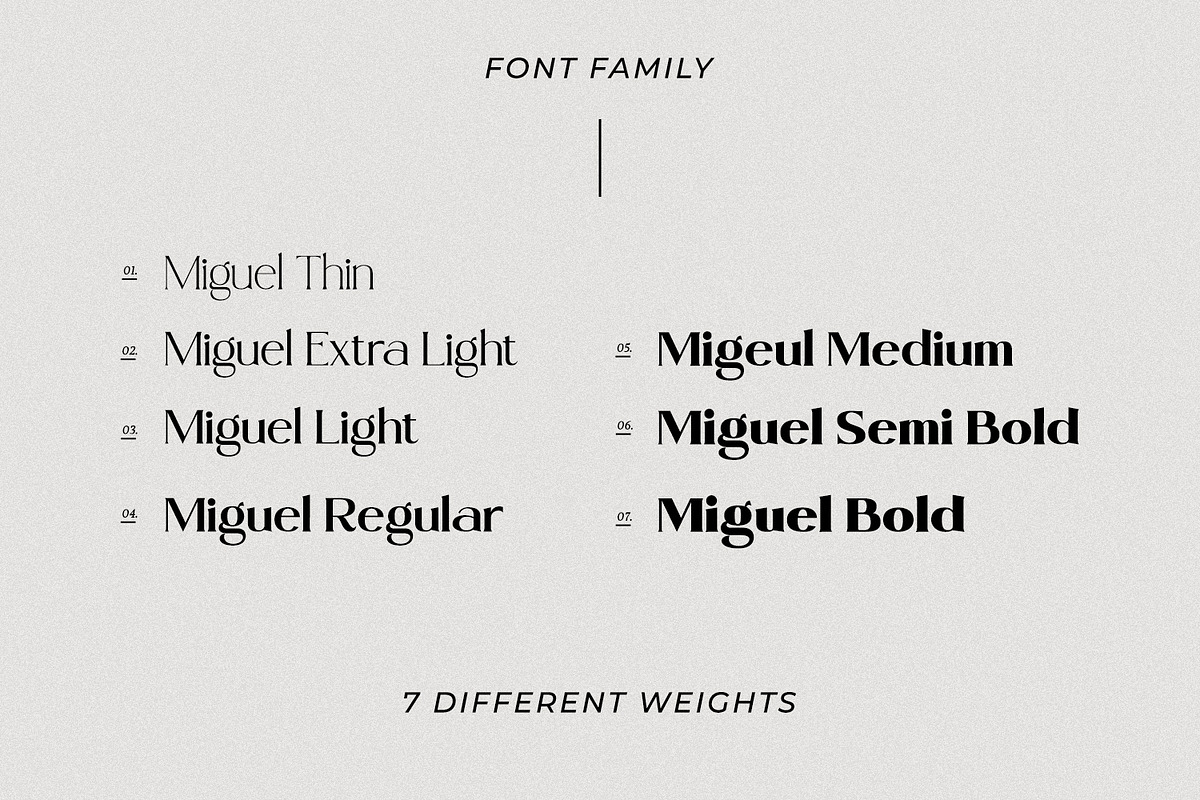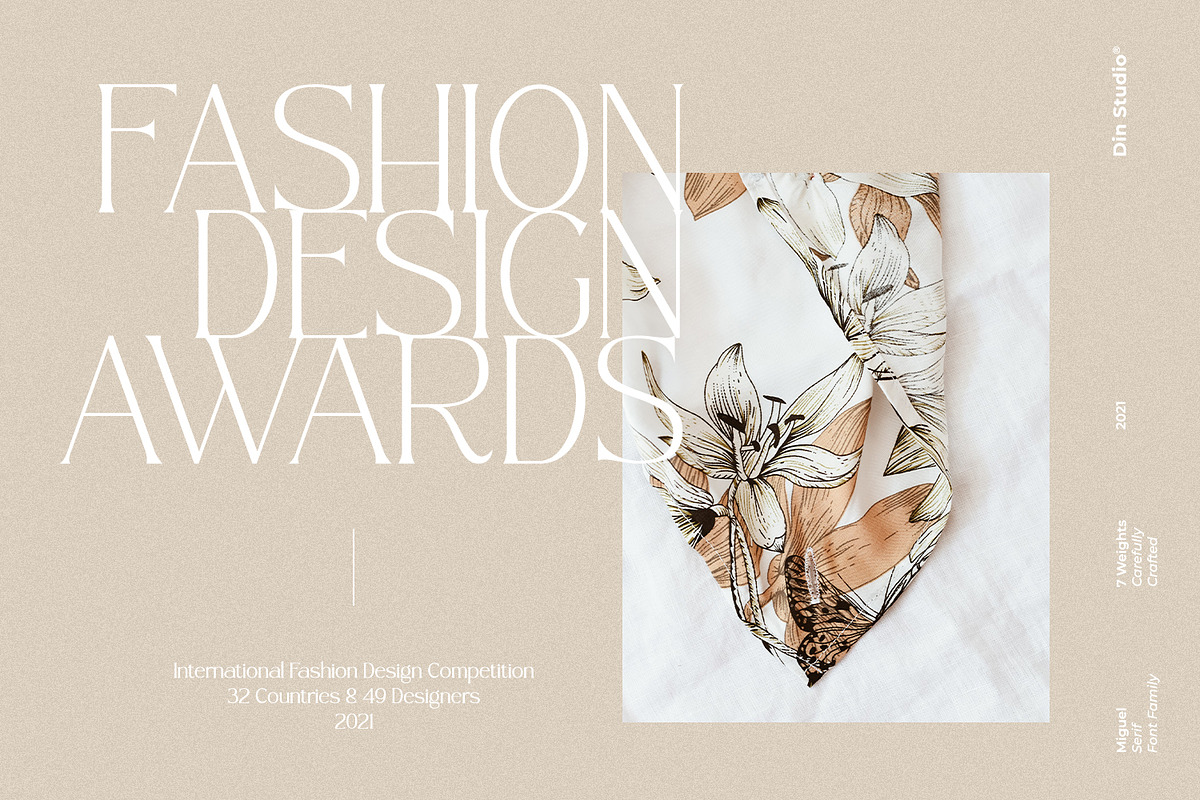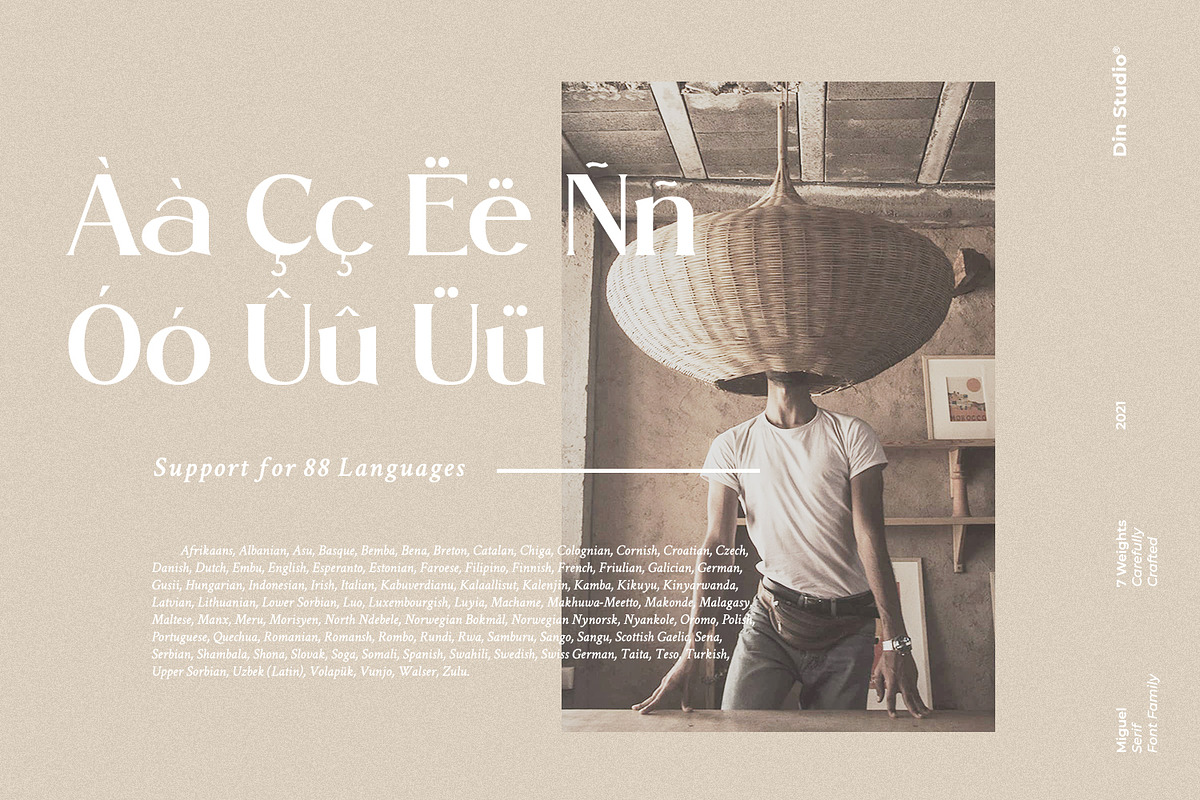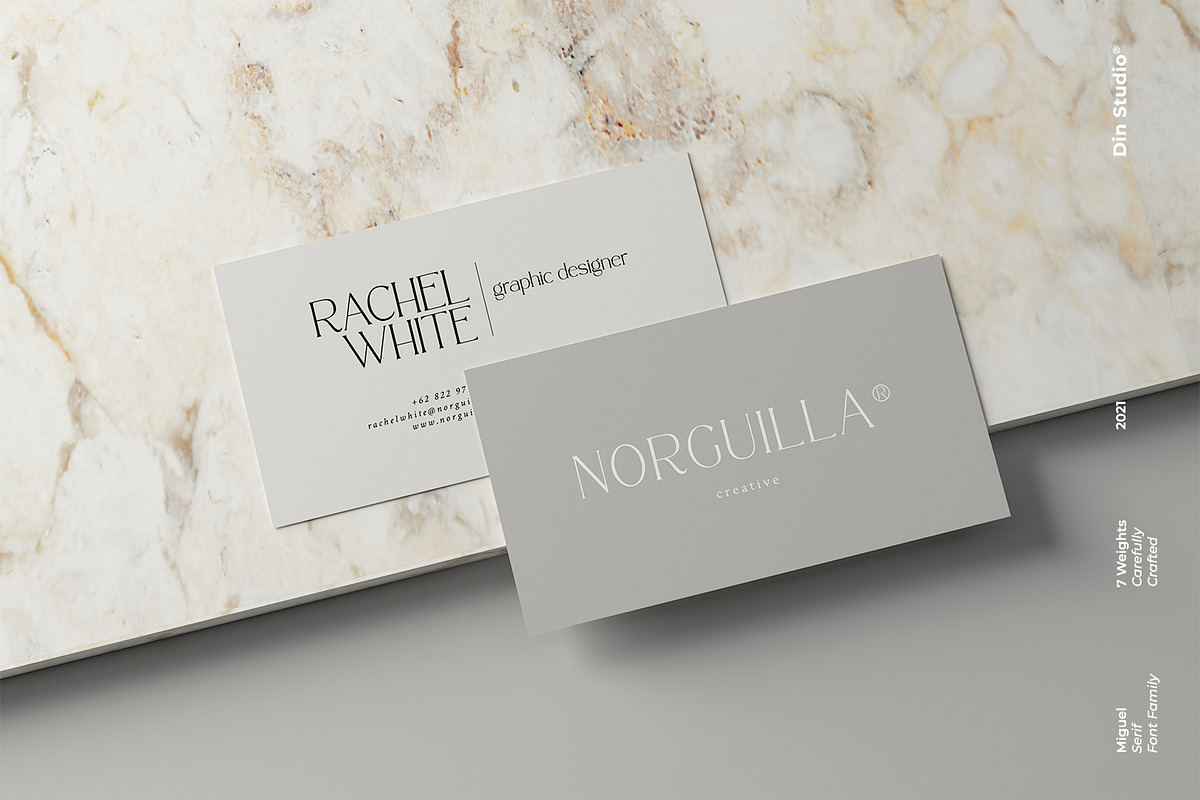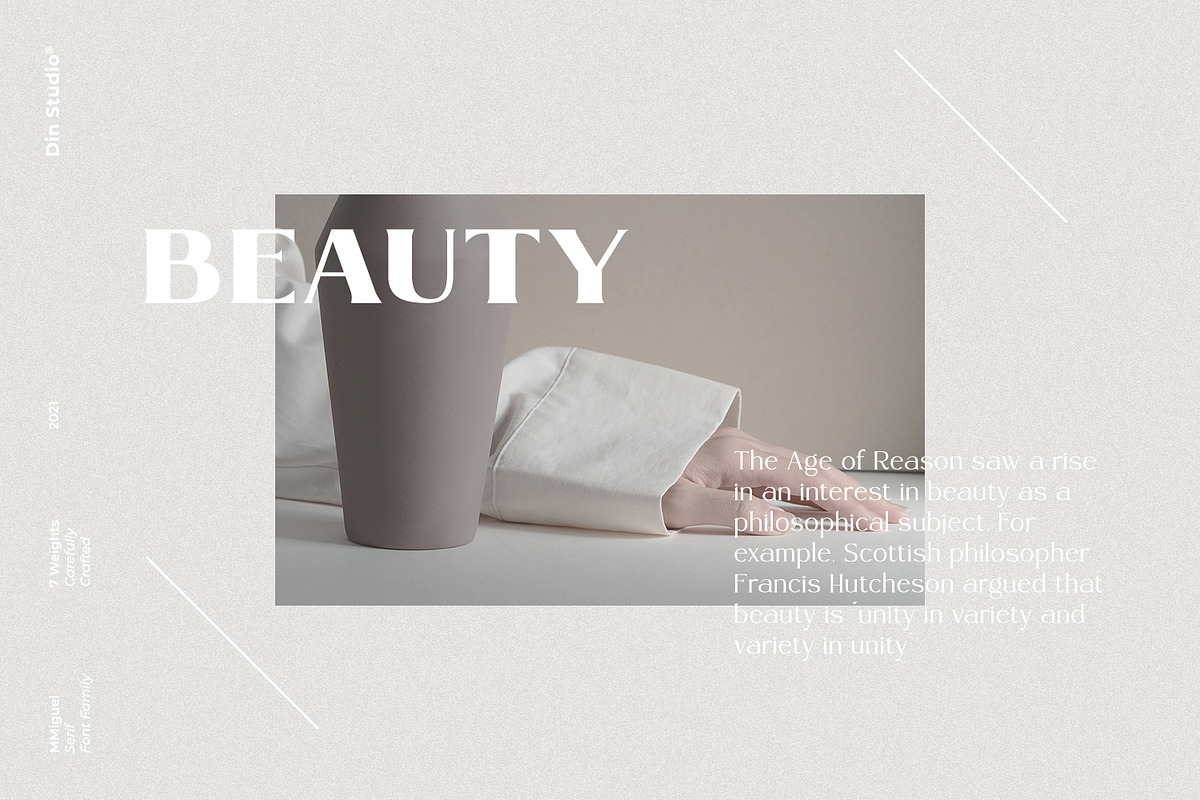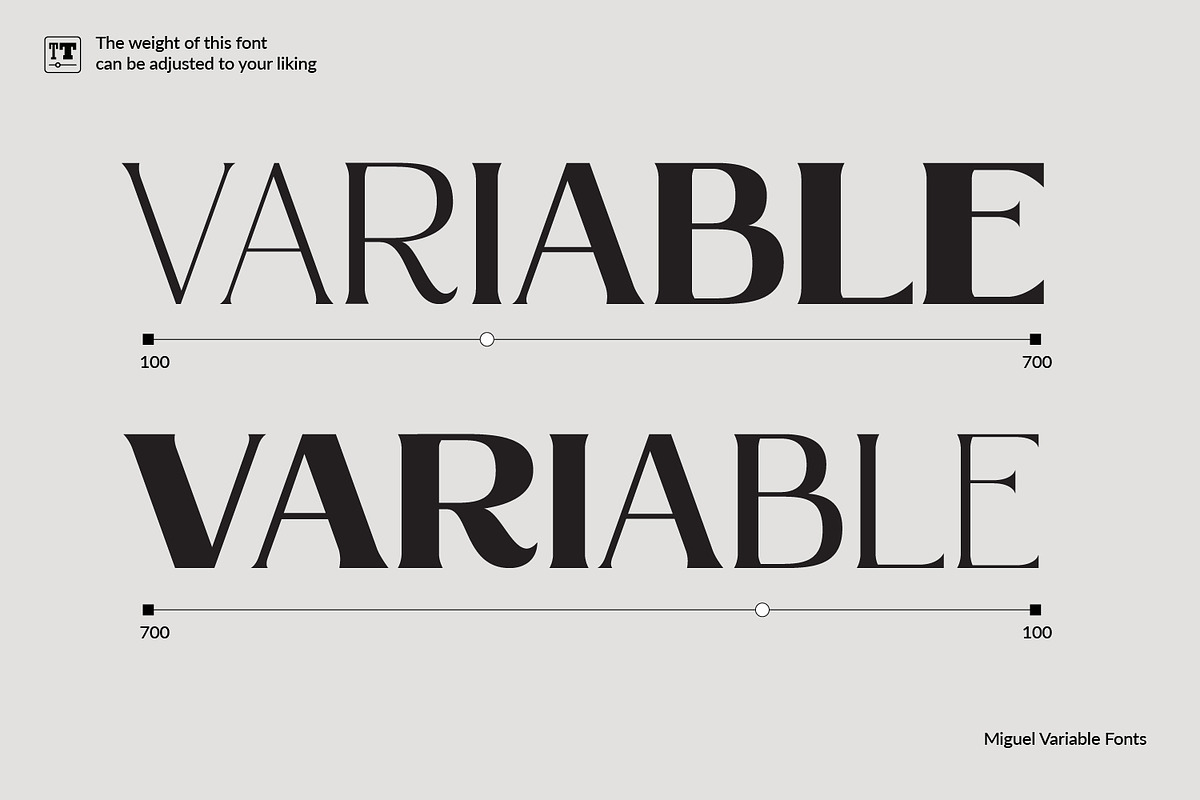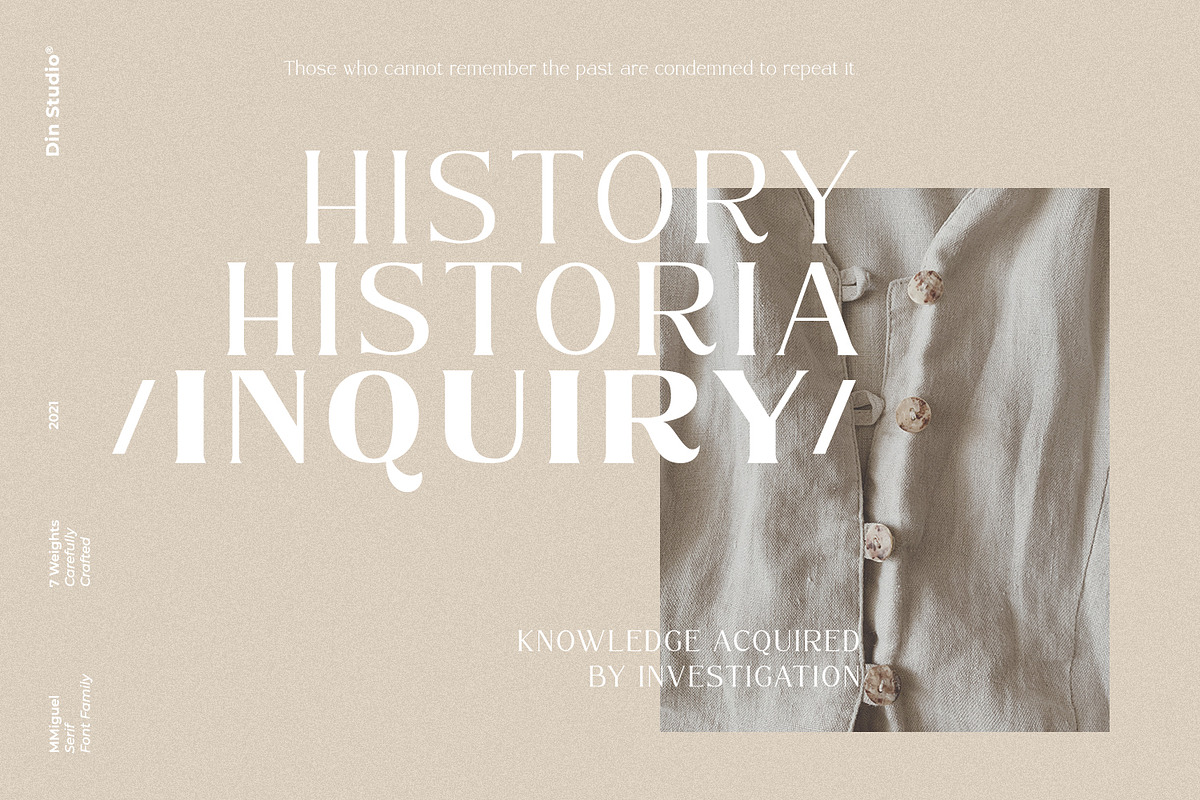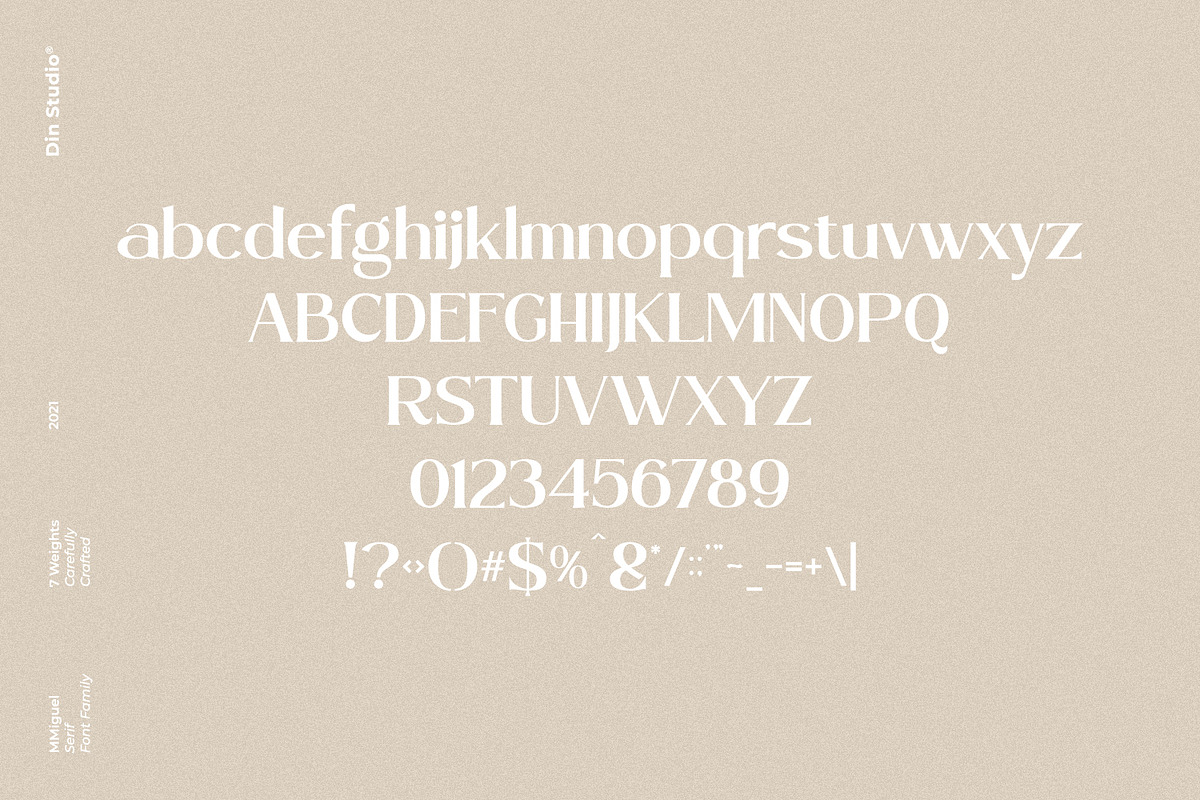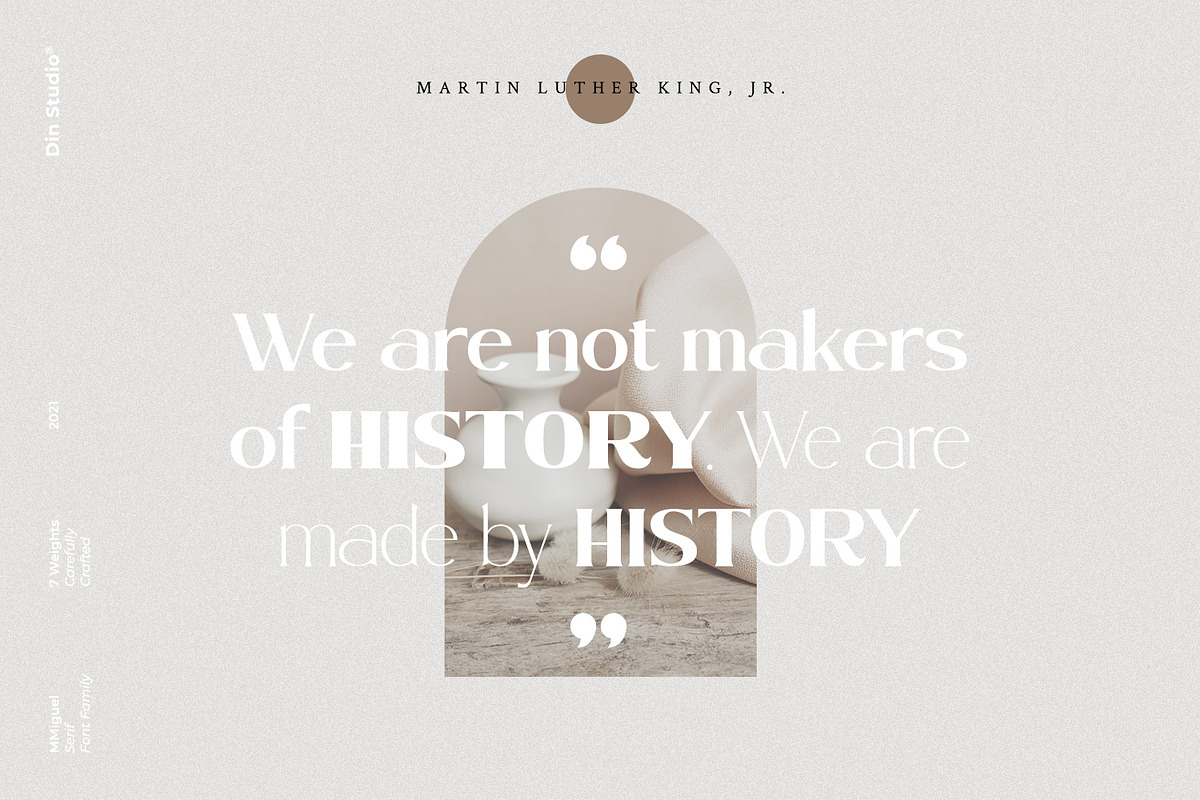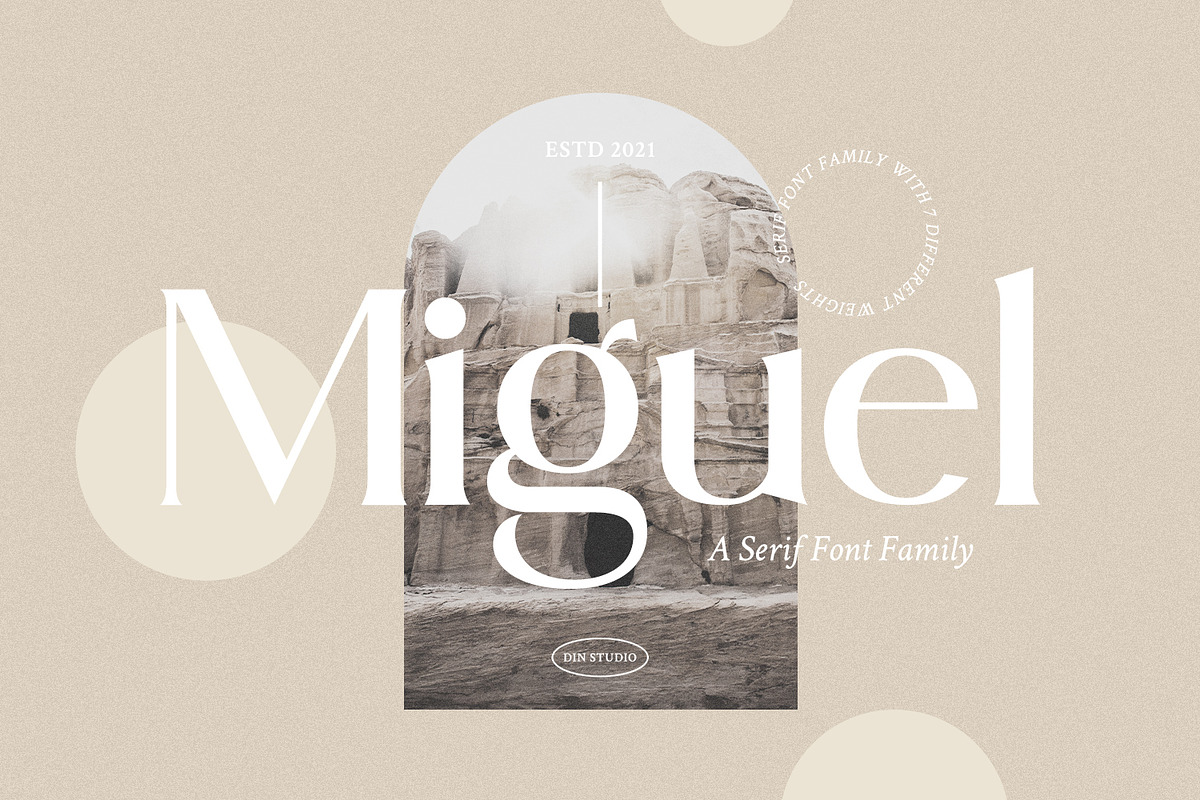
Miguel
Hi, Everyone! Want a font to make your branding bold? Looking for a statement font that exudes prominence, style, and adventure? Then we’ve got the answer. Introducing Miguel – A Serif Font Family.
With this package you will get many options to maximize your designs with stylish fonts. The font paves the way for you to write the information you need to send out to your audience. The variety of weights provide a range of choices that will help you find the best typographic character for your project. Make your projects to works of art, conveying your intentions clearly with the font!
Use Miguel for any design projects, such as posters, banners, logos, book covers, album covers, quotes, invitations, greeting cards, name cards, headings, printed products, merchandise, social media, etc. Find out more ways to use this font by taking a look at the font preview.